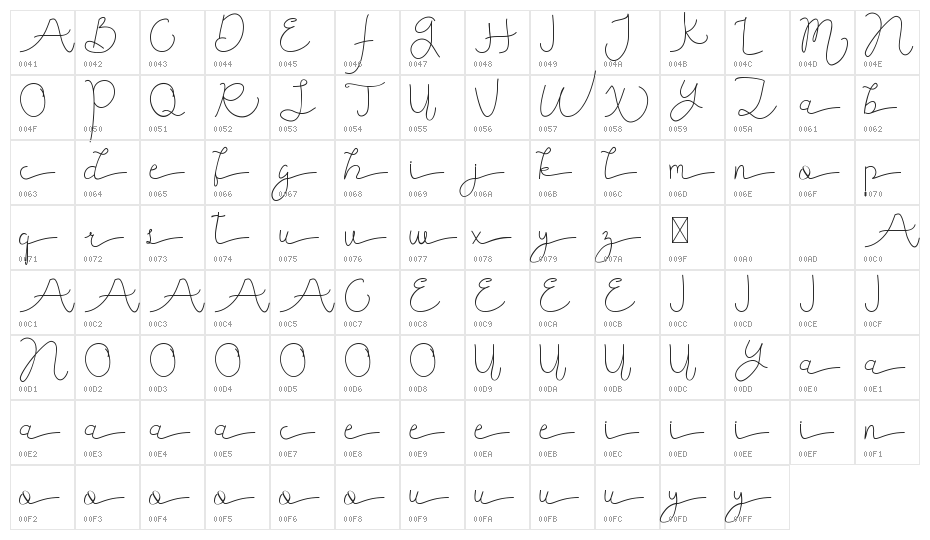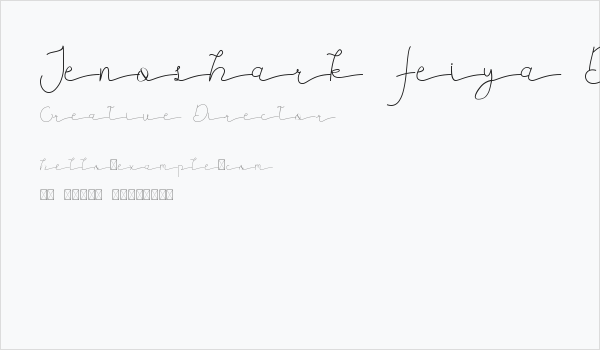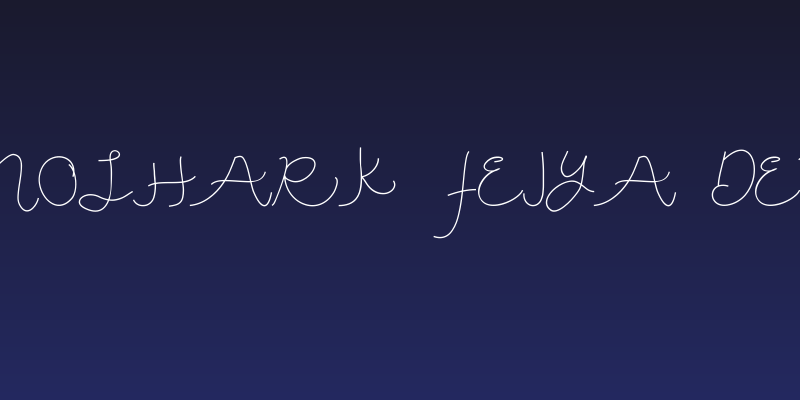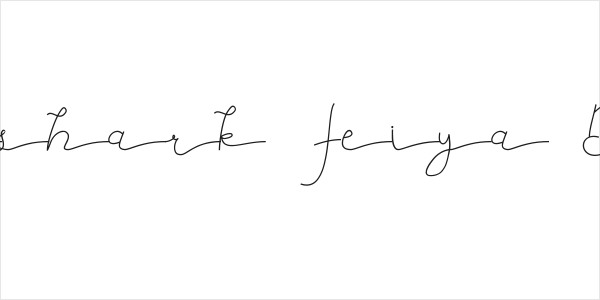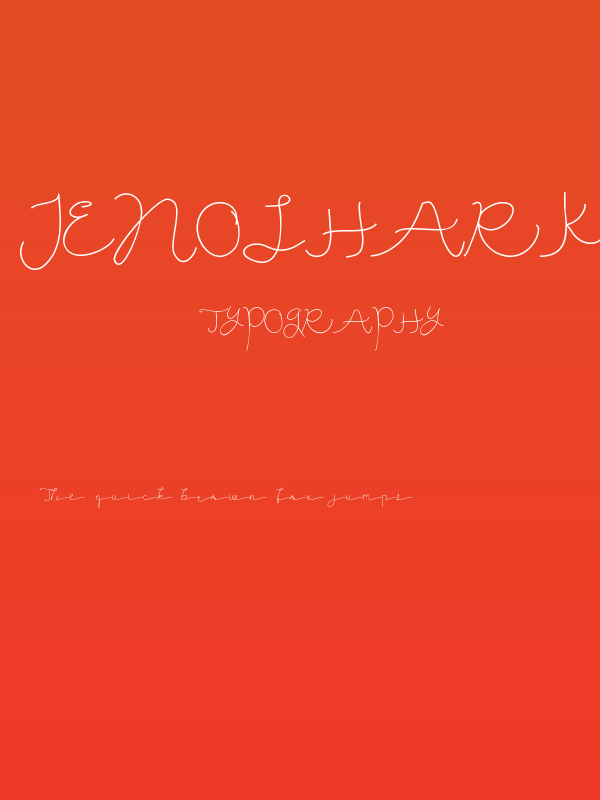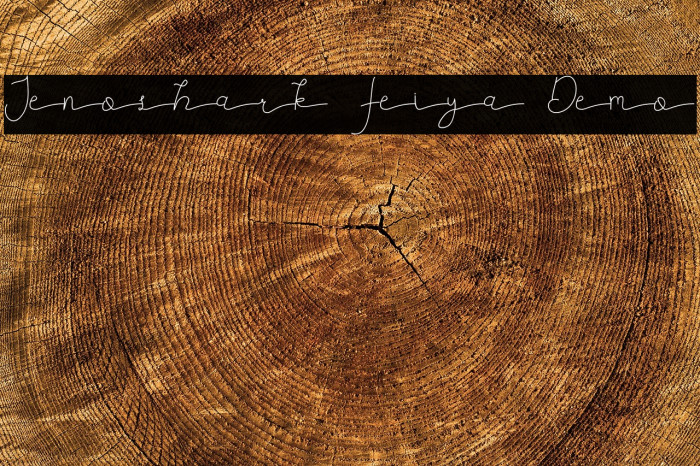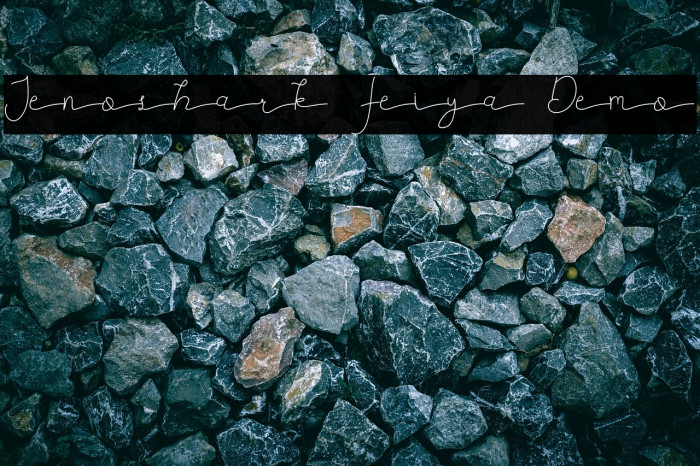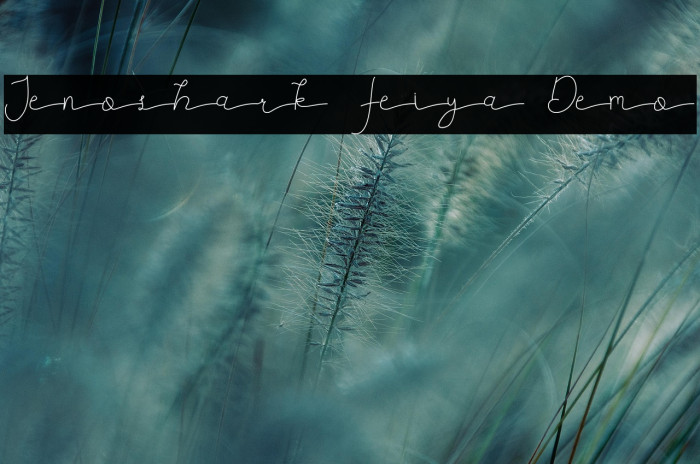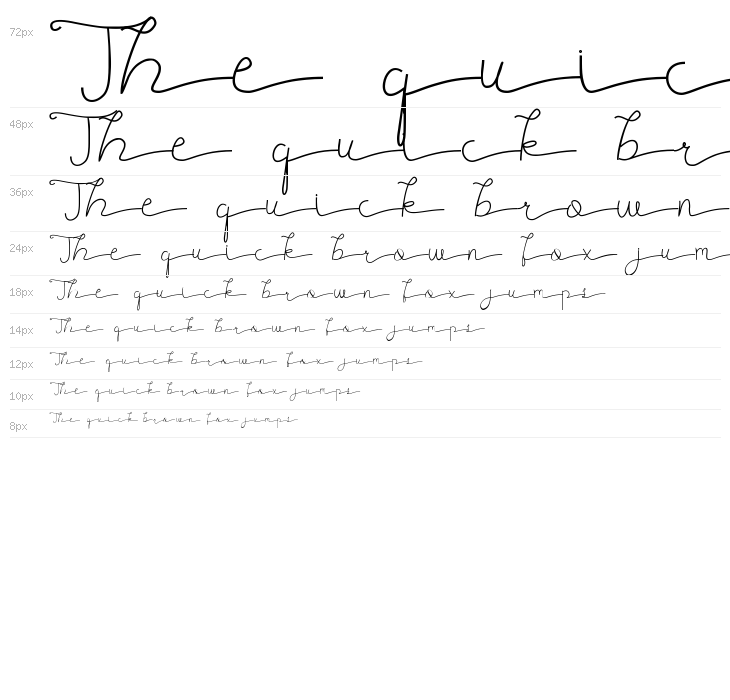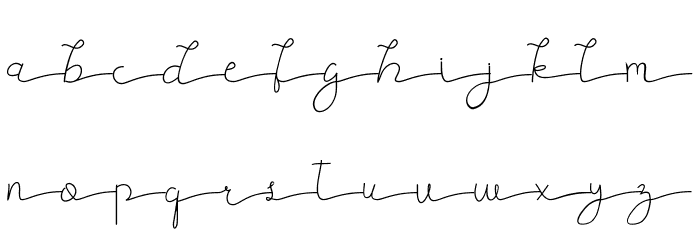
Jenoshark Feiya Demo Font
This elegant script font features a delicate and flowing design, characterized by its thin, graceful strokes and subtle curves. The uppercase letters exhibit a sophisticated flair with extended loops and swashes, adding a touch of elegance and fluidity. The lowercase letters maintain a consistent flow, seamlessly connecting each character for a cohesive appearance. The font's overall style is reminiscent of classic calligraphy, yet it maintains a modern sensibility with its clean lines and minimalistic approach. The numerals and special characters are crafted with the same attention to detail, ensuring a harmonious look across all elements. This font is ideal for projects that require a touch of sophistication and elegance, such as wedding invitations, branding, and high-end product packaging.
| Overall Style | Modern, Elegant |
| Proposed Projects | Wedding invitations, luxury branding, elegant product packaging, personal stationery. |